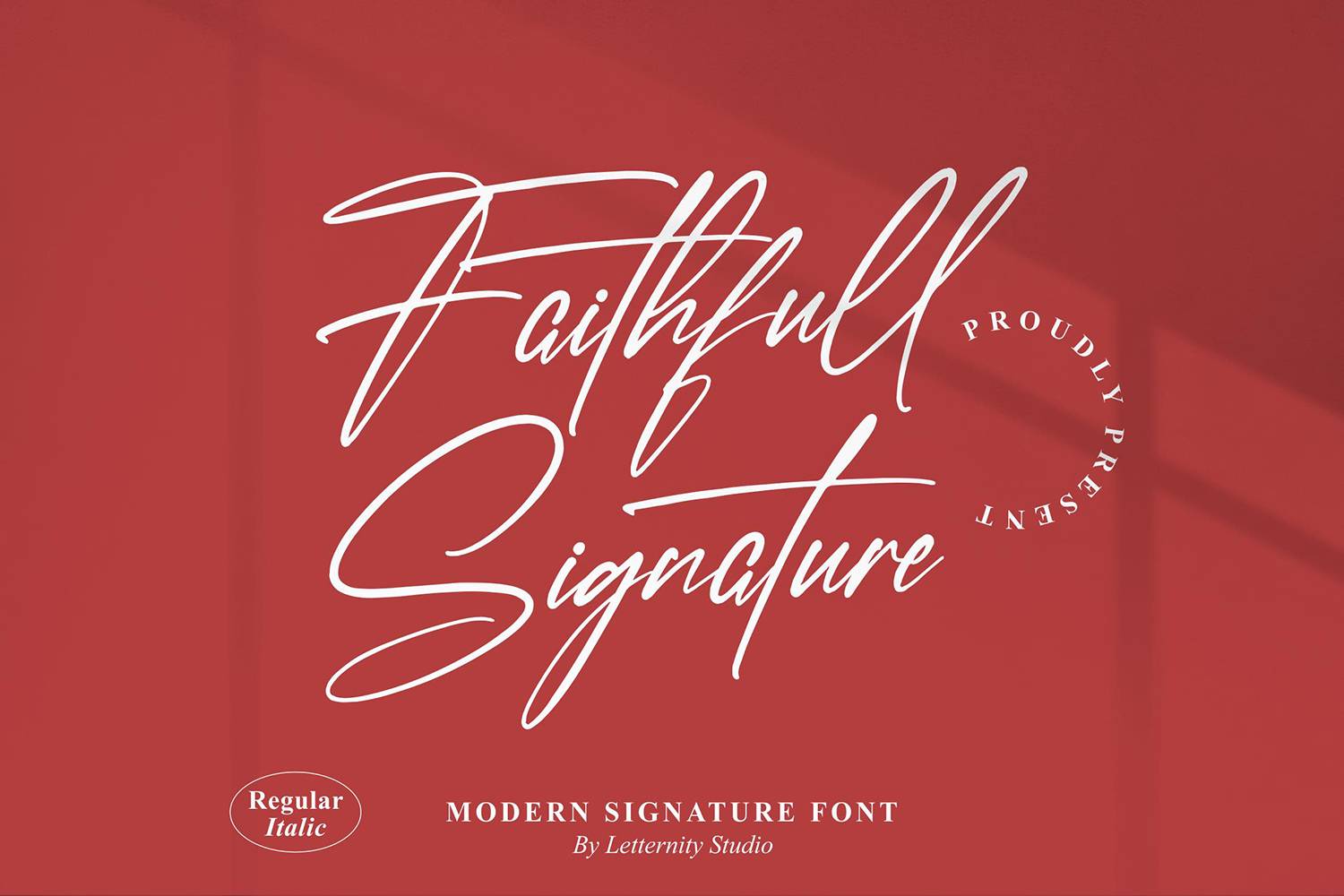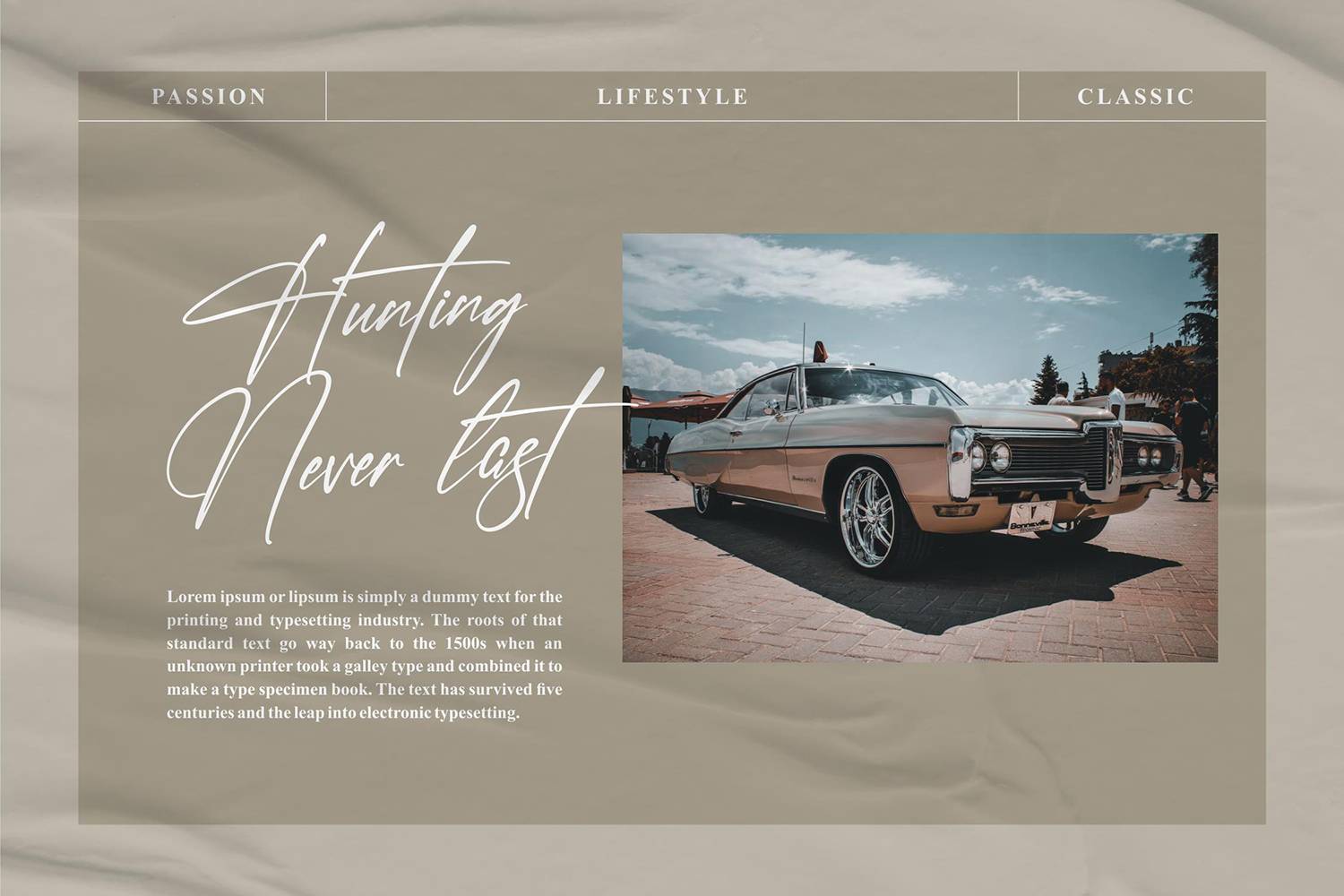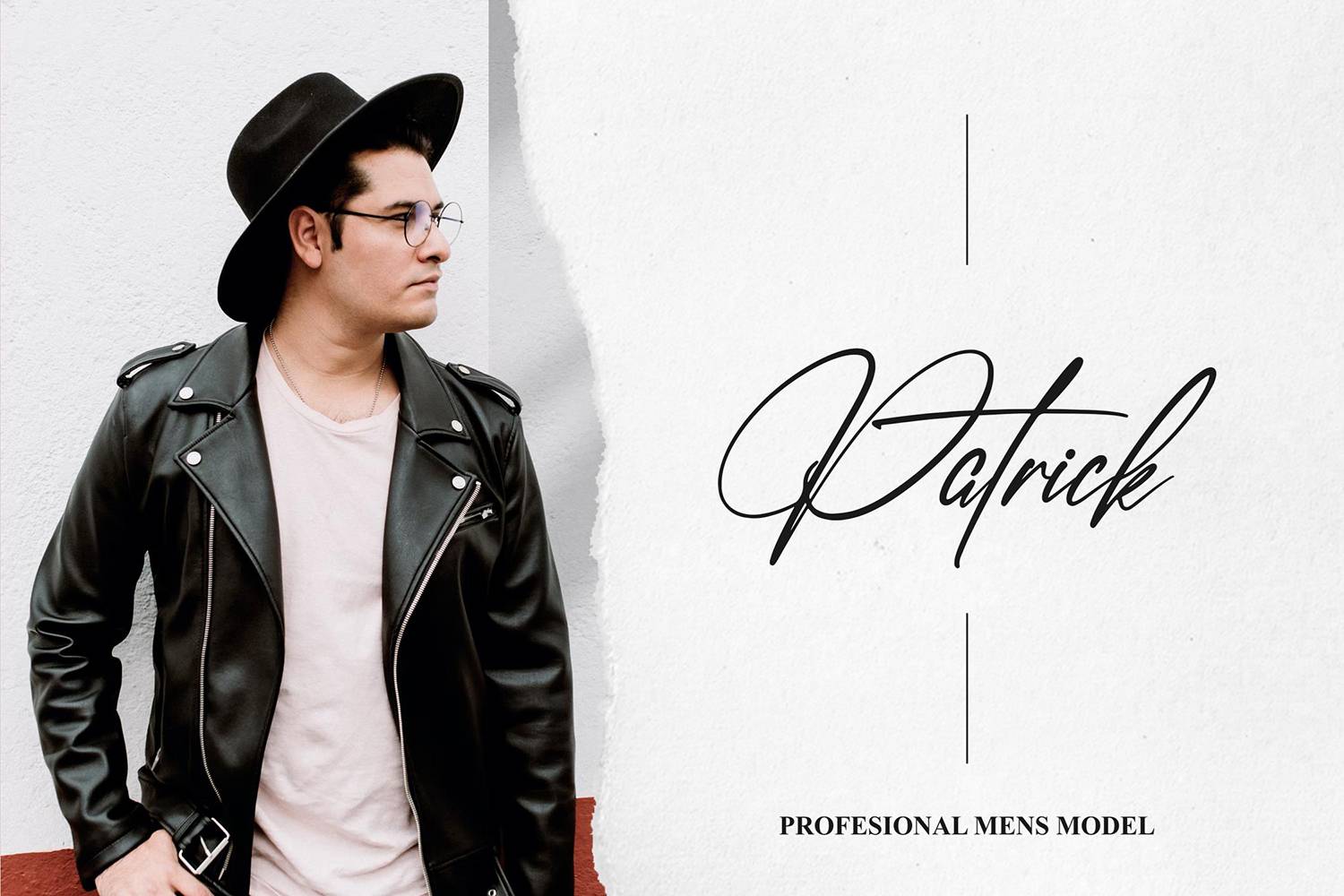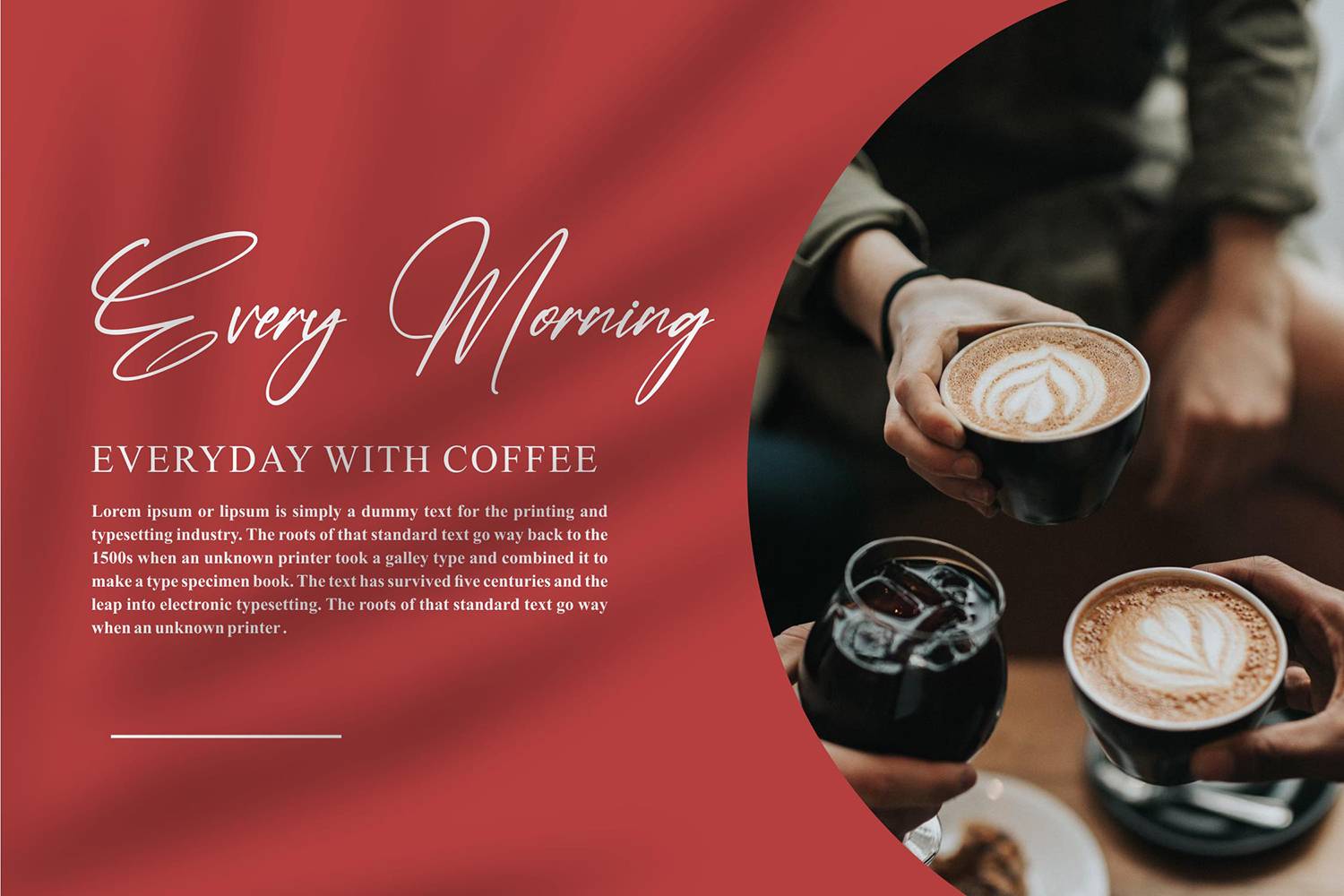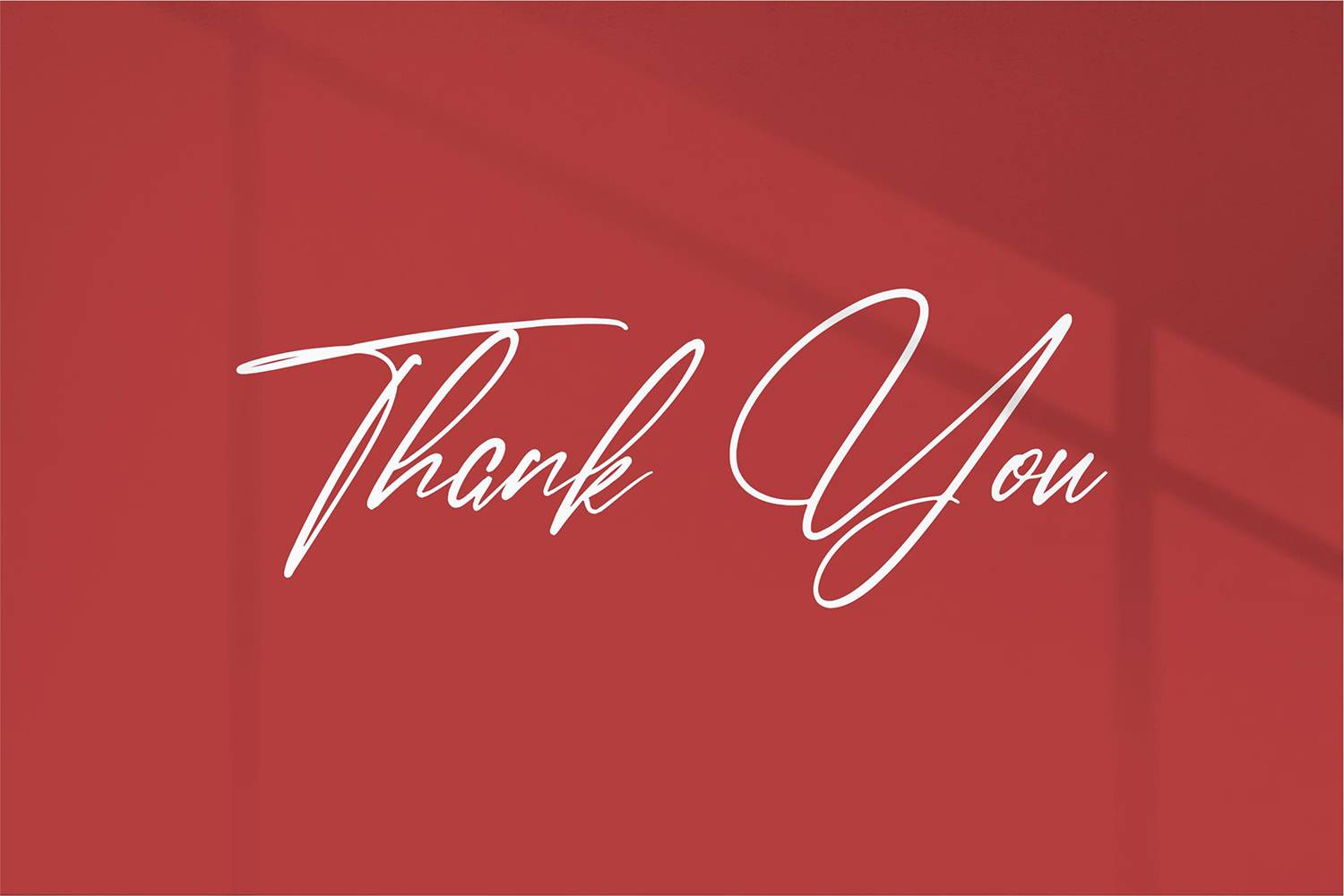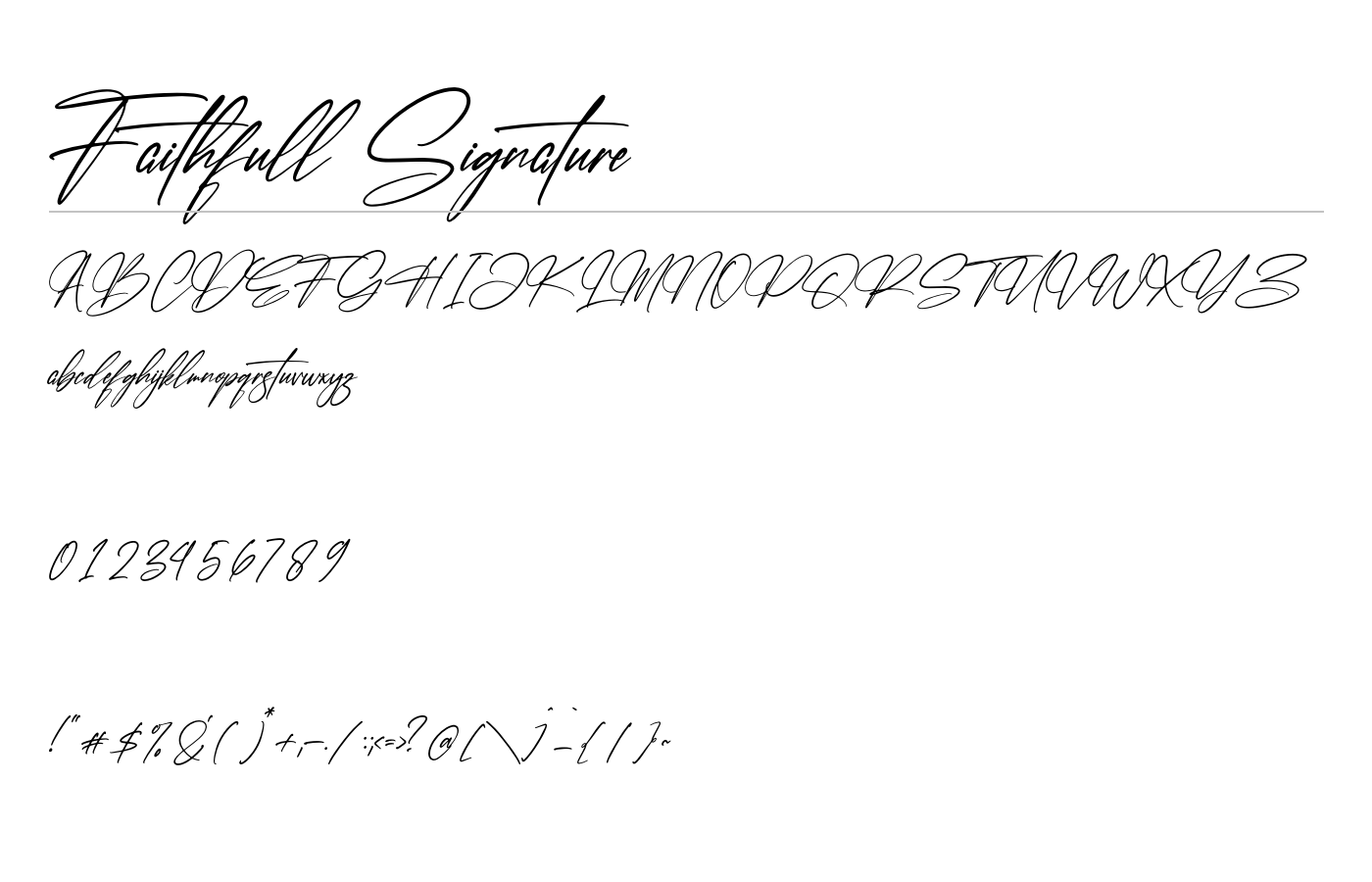
Faithfull Signature is a slender, elegant script font with a refined, handwritten style that mimics natural cursive writing. Its delicate strokes and smooth, flowing connections make it perfect for luxury branding, personal signatures, and stylish invitations where a sophisticated yet approachable feel is desired. This font shines in headline or logo use, adding a modern, graceful touch to fashion, beauty, or creative projects.
Faithfull Signature Font
About Faithfull Signature Font